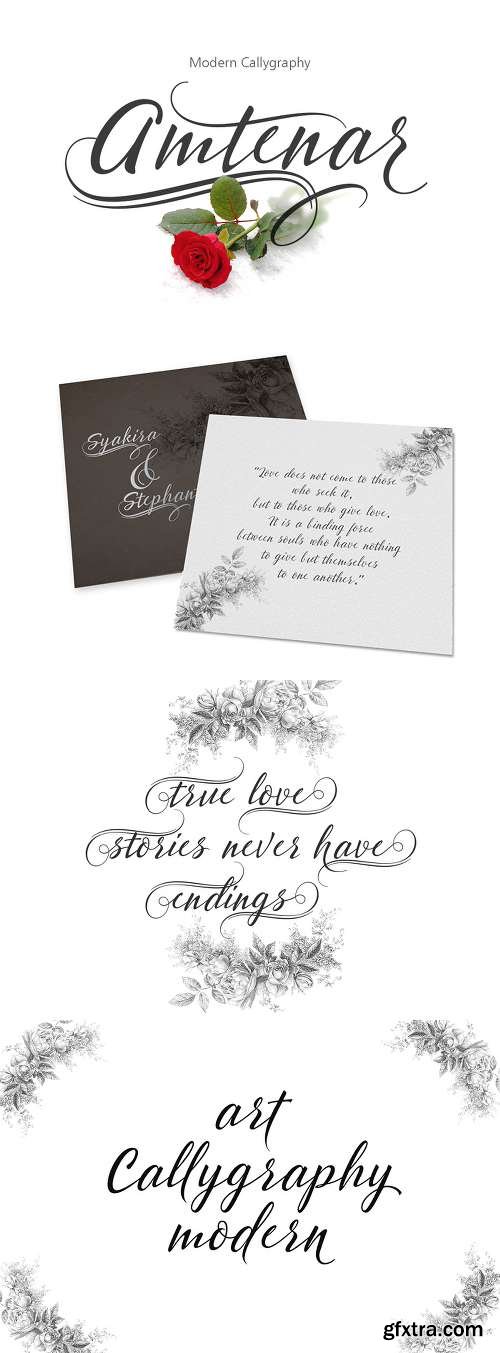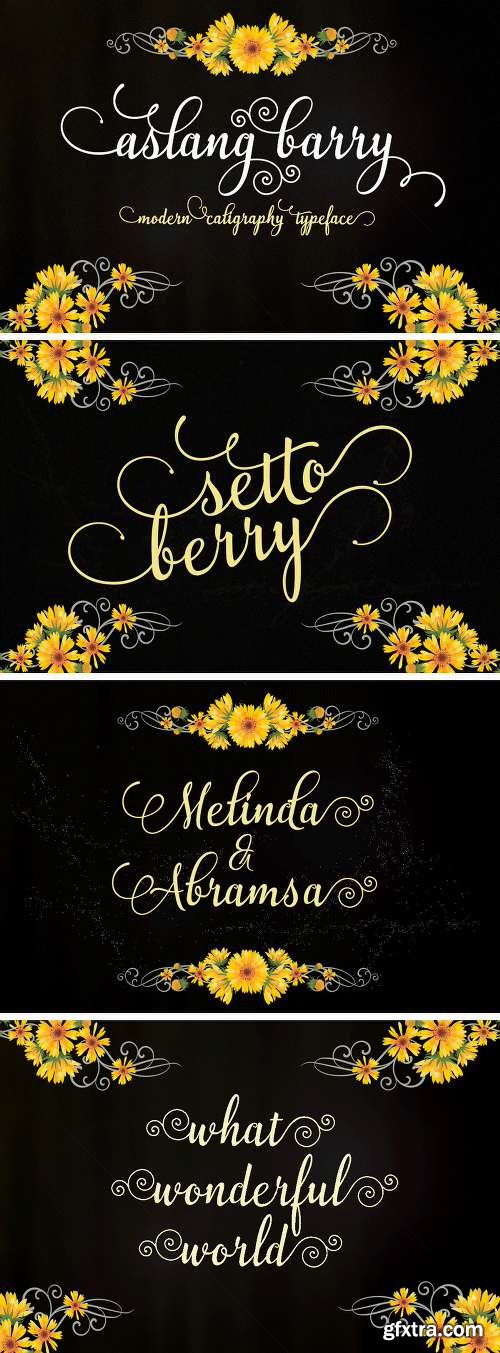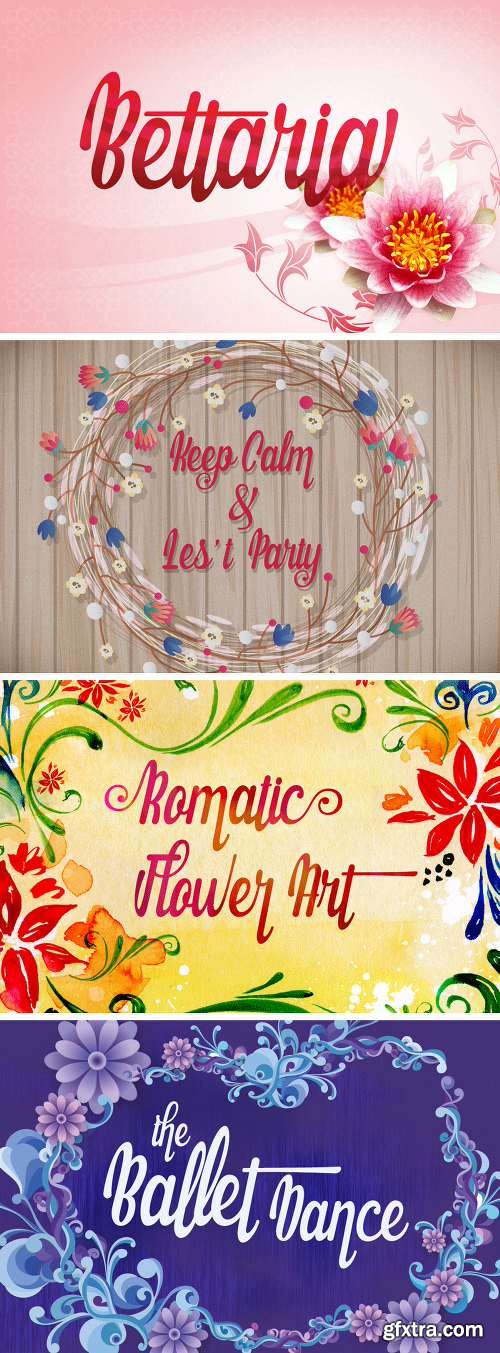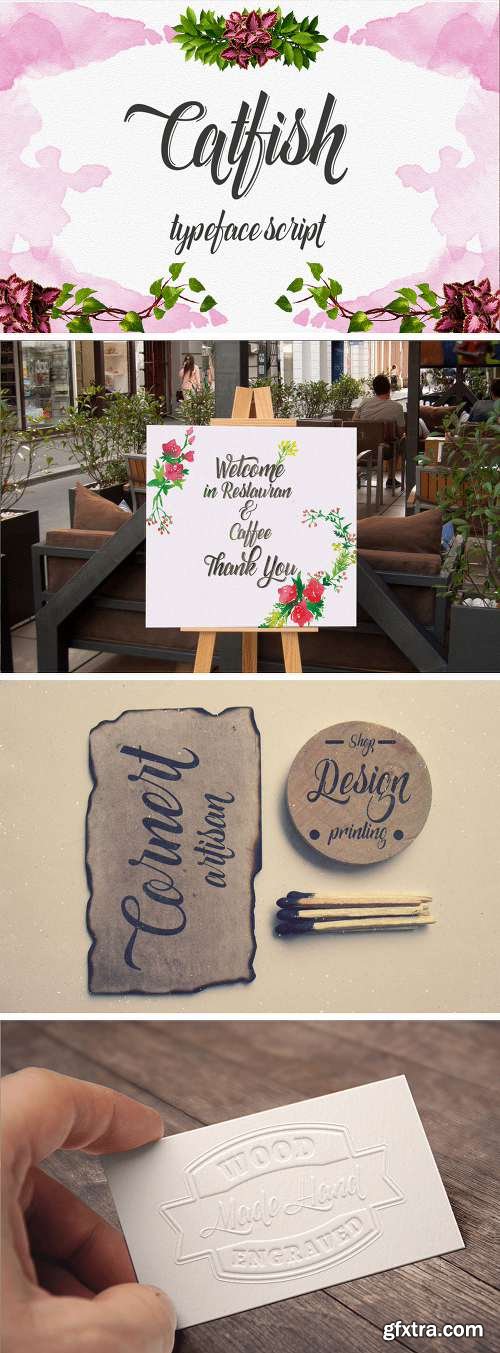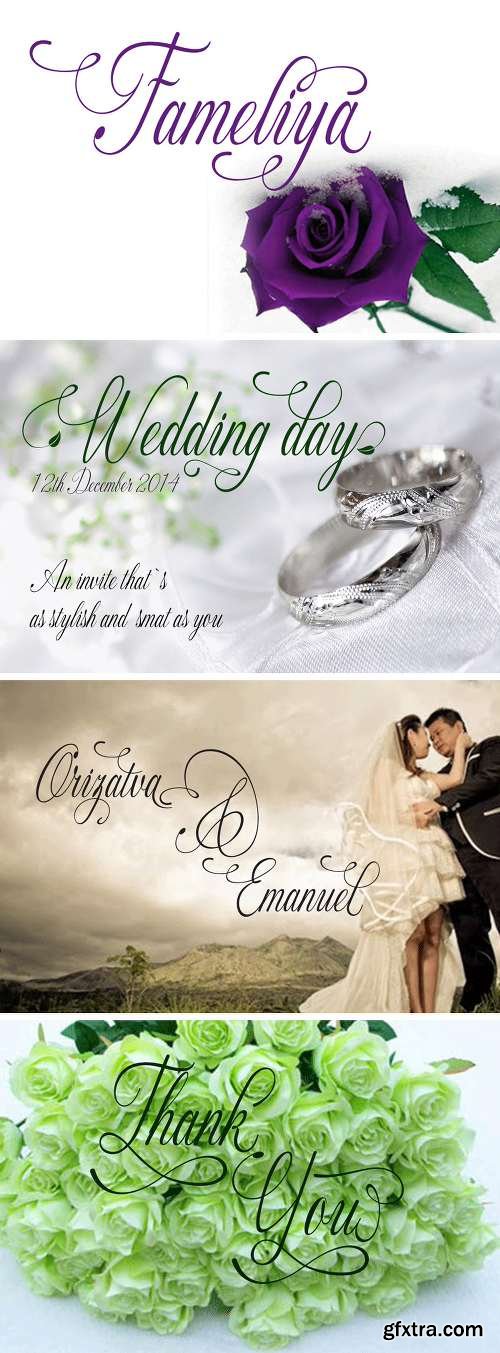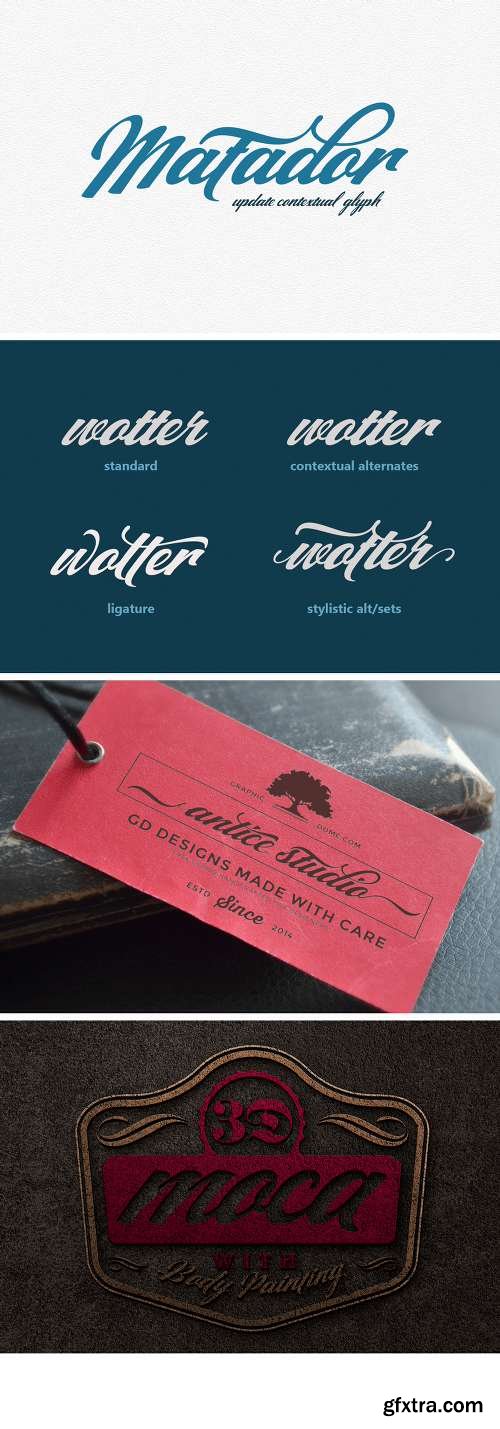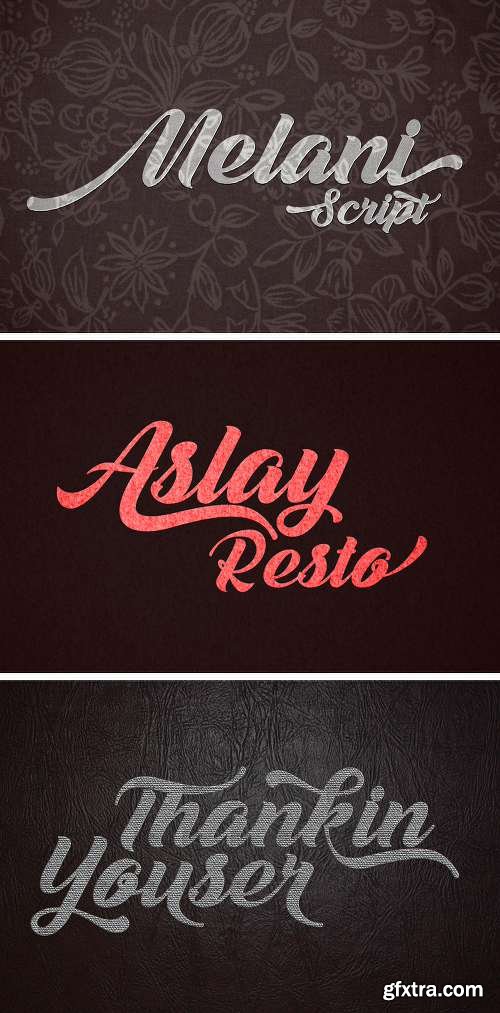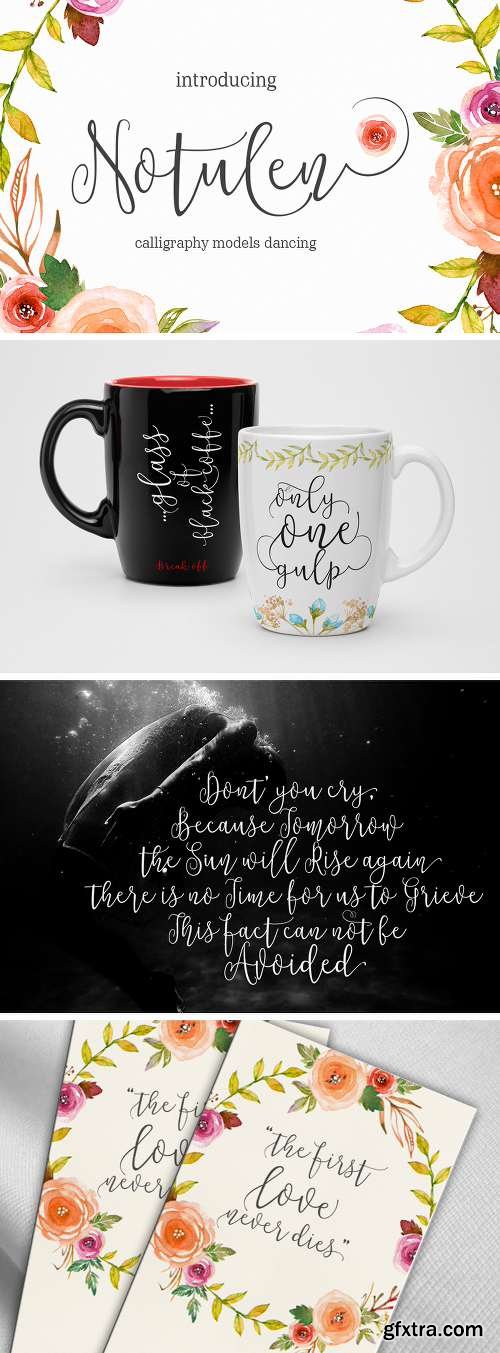
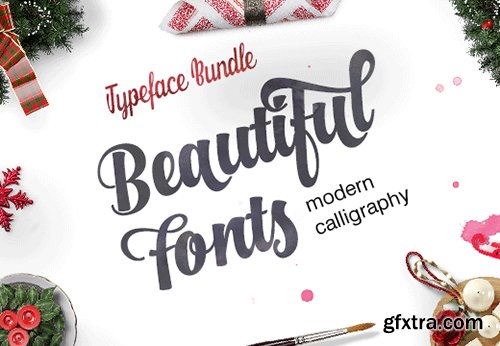
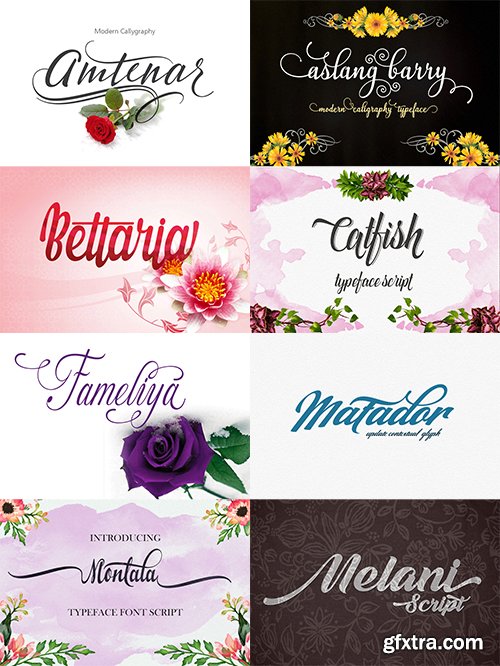
InkyDeals - The Typeface Bundle with 10 Beautiful Fonts
- It’s time to add an air of elegance to your typeface toolbox! And with this beautiful bundle of script fonts from Groens, you can get yourself 10 fonts in one magnificent swirl of a deal. Mixing the classic with the modern, these breathtaking brush fonts are just perfect for everything from wedding invitations to logos to T-shirts! Toss in loads of OpenType features such as swashes, Initial and Terminals Forms, and standard ligatures, and the possibilities are endless.